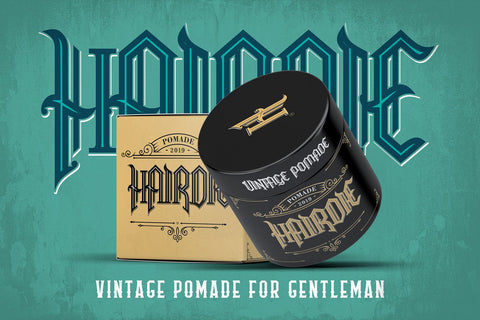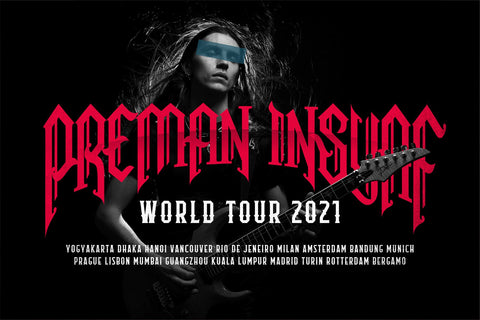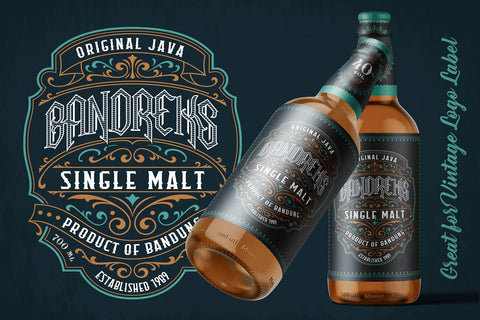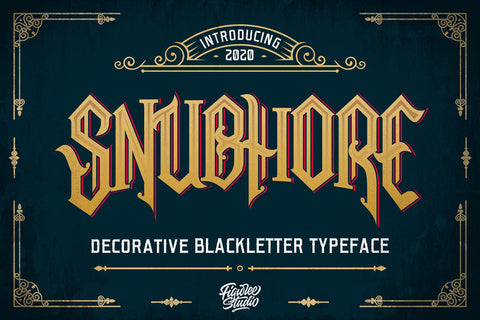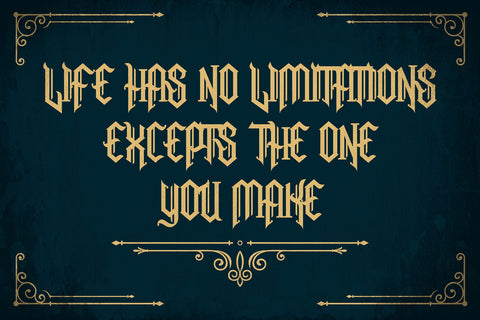
Snubhore - Blackletter Typeface
Introducing Snubhore Gothic Blackletter Font, a unique gothic blackletter for your design.
Perfect for tattoos clothing, labels and packaging, branding, or any Gothic-themed projects!